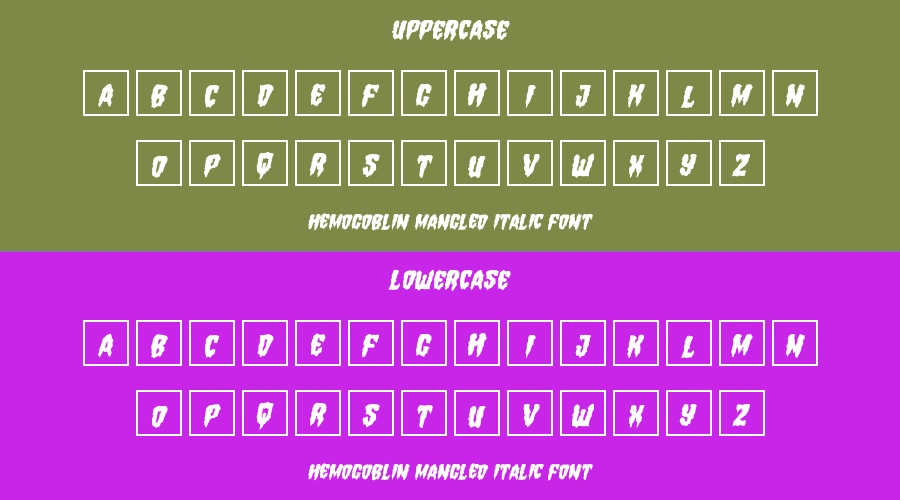
About Hemogoblin Mangled Italic Font
Hemogoblin Mangled Italic Font embodies typographic excellence through its masterful combination of artistic freedom and flexibility. Created for presentation decks, this typeface delivers exceptional consistency and brand alignment across all applications. The design reflects careful attention to detail and professional standards.
Advanced capabilities include distinctive rounded apexes and versatile case-sensitive forms, giving designers creative control. When used in artistic statements, Hemogoblin Mangled Italic Font exhibits remarkable reliability. The harmonious balance between apex design and educational suitability sets this typeface apart.